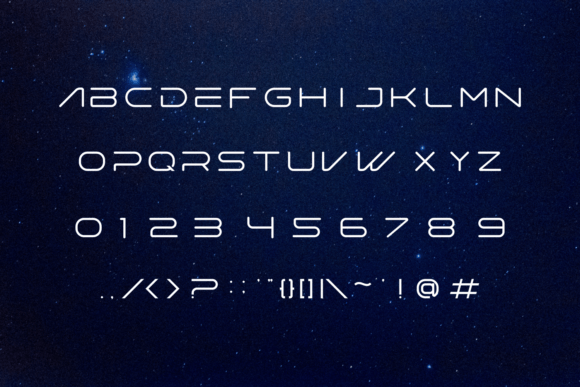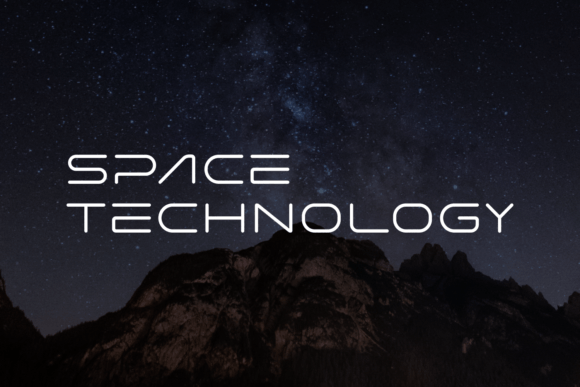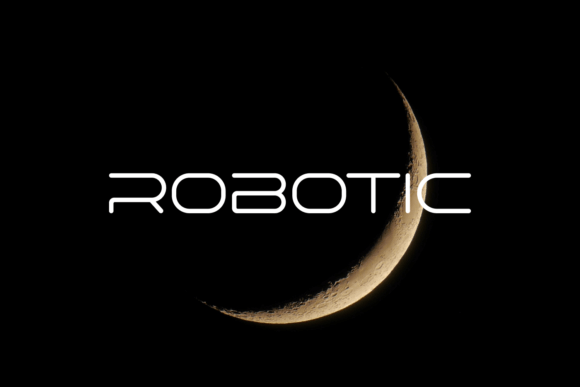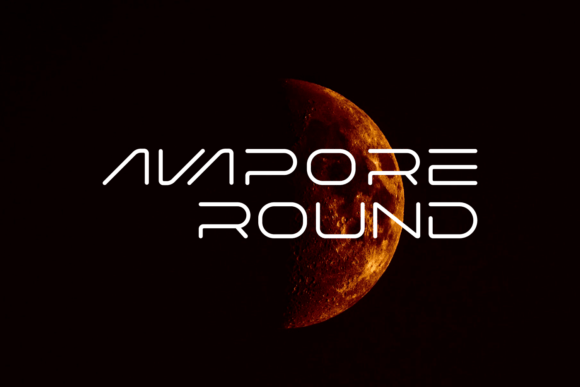
Introducing Avapore Round: The Ultimate Sans Serif Font for Creative Projects
Are you tired of using the same old fonts for your creative projects? Look no further! Avapore Round is a cool and stylish sans serif font that is sure to take your designs to the next level. Masterfully designed to become a true favorite, this font has the potential to bring each of your creative ideas to the highest level. In this article, we’ll dive into the features and benefits of Avapore Round, and explore how it can elevate your design game.
What is Avapore Round?
Avapore Round is a modern sans serif font that boasts a unique and stylish design. Its rounded edges and clean lines make it perfect for a wide range of creative projects, from branding and advertising to packaging and digital design. The font’s sleek and sophisticated aesthetic is sure to grab attention and leave a lasting impression.
Key Features of Avapore Round
• Unique and Stylish Design: Avapore Round’s distinctive design sets it apart from other sans serif fonts. Its rounded edges and clean lines create a visually appealing aesthetic that is sure to elevate your designs.
• Highly Versatile: Avapore Round is perfect for a wide range of creative projects, from branding and advertising to packaging and digital design.
• Easy to Read: The font’s clear and clean design makes it easy to read, even at small sizes.
• Customizable: Avapore Round comes with a range of customization options, allowing you to tailor the font to your specific needs.
Benefits of Using Avapore Round
So why choose Avapore Round for your creative projects? Here are just a few benefits of using this amazing font:
• Stand Out from the Crowd: Avapore Round’s unique design ensures that your projects will stand out from the crowd and grab attention.
• Elevate Your Brand: The font’s sleek and sophisticated aesthetic is perfect for brands looking to elevate their image and create a lasting impression.
• Save Time: Avapore Round’s highly legible design saves you time and effort, as you can be confident that your message will be communicated clearly.
• Endless Creative Possibilities: Avapore Round’s versatility means that you can use it for a wide range of creative projects, from print to digital.
How to Use Avapore Round
Using Avapore Round is easy! Here are a few tips to get you started:
• Pair it with Other Fonts: Avapore Round pairs perfectly with other fonts, creating a unique and visually appealing aesthetic.
• Experiment with Colors: The font’s clean design makes it perfect for experimenting with different colors and gradients.
• Use it for Headings and Body Text: Avapore Round’s clear and legible design makes it perfect for both headings and body text.
Avapore Round is a game-changing sans serif font that is sure to elevate your creative projects to new heights. Its unique and stylish design, versatility, and ease of use make it a must-have for designers and crafters. Whether you’re looking to create a bold brand statement or simply want to add some style to your designs, Avapore Round is the perfect choice.